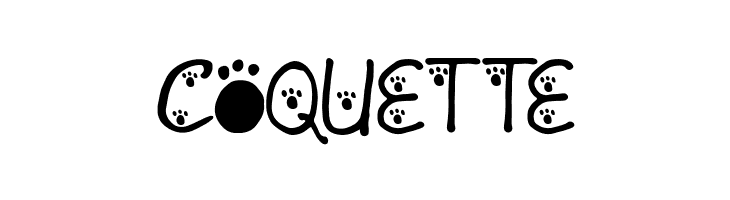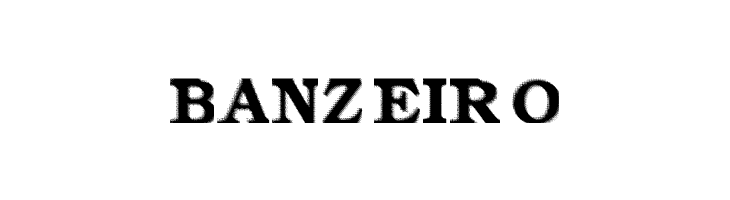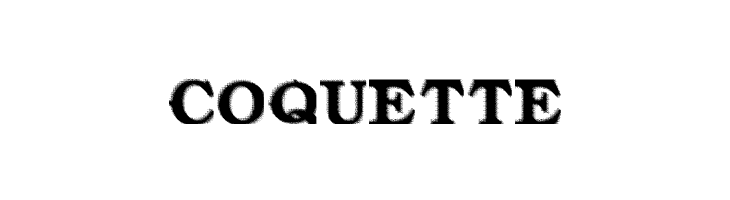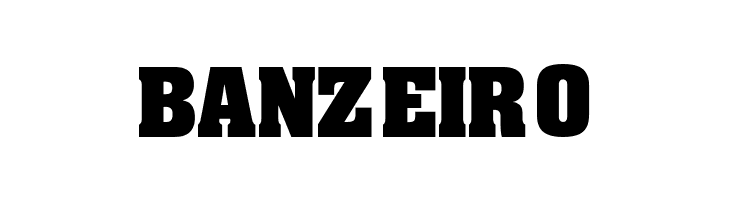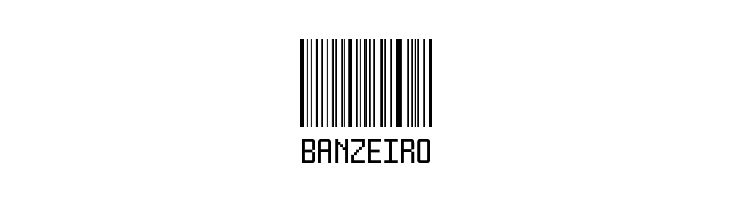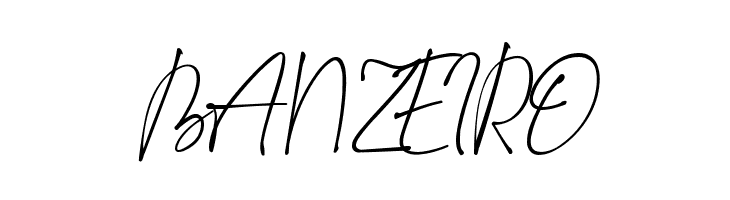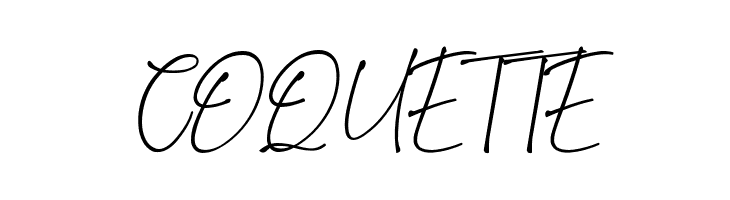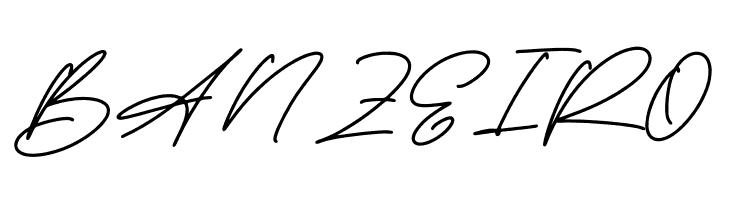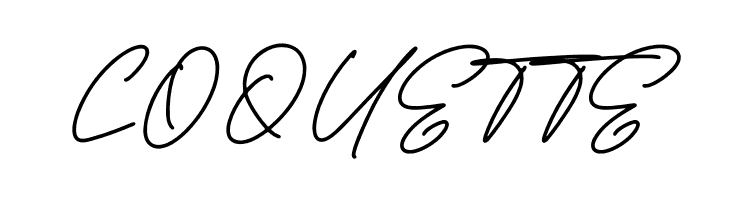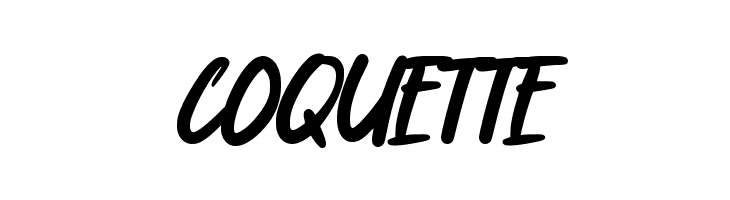
A modern, minimalist font with geometric and sleek lines.
A playful, heart-themed font with a hand-drawn feel, perfect for romantic designs.
A lively handwritten font with fluid, dynamic strokes and elegant connections.
A playful, handwritten script font with interconnected characters.
A bold, distressed font with a grunge, hand-drawn style.
A dynamic blend of cursive elegance and bold modernity.
A playful, handwritten cursive font with a smooth and flowing style.
Casual handwritten font with a friendly style.
A playful, casual handwritten font with smooth, rounded strokes.
A playful and elegant script font with flowing cursive design and decorative flourishes.
A playful, animal-themed font with paw prints integrated into each character.
A modern, geometric font with a unique cut-out style and consistent line thickness.
A modern, geometric sans-serif font with balanced proportions and versatile applications.
A classic serif font with modern elements, featuring bold strokes and rounded edges.
A modern, elongated font with high contrast and narrow characters.
A thin, modern font with elongated, narrow letterforms and consistent stroke width.
A modern, geometric font with consistent stroke width and rounded edges.
A barcode-style font with vertical lines representing each character.
Expressive, bold handwritten script with brush-like strokes.
A dot matrix font with a digital, retro aesthetic.
A bold, playful, and hand-drawn font with a friendly and decorative style.
A fluid and elegant cursive script with a handwritten appearance.
A modern, elegant script font with flowing, cursive letters and stylish numerals.
A bold, distressed font with a grungy, textured appearance.